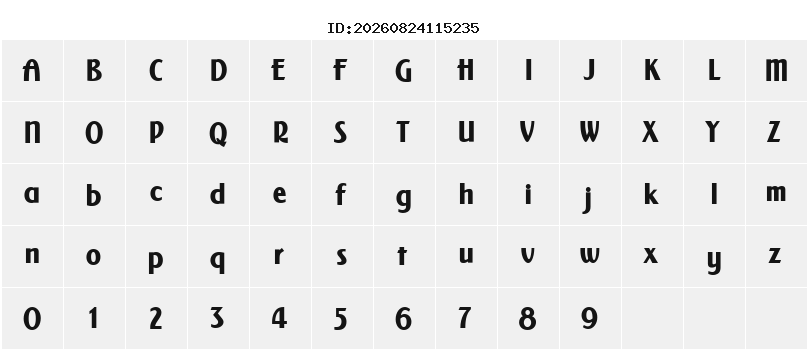
SaintLouisExtraBold Preview
About SaintLouisExtraBold.ttf
SaintLouisExtraBold.ttf is a modern, elegant sans-serif font designed for ultimate readability and visual harmony. Perfect for branding, headlines, web design, and print materials.